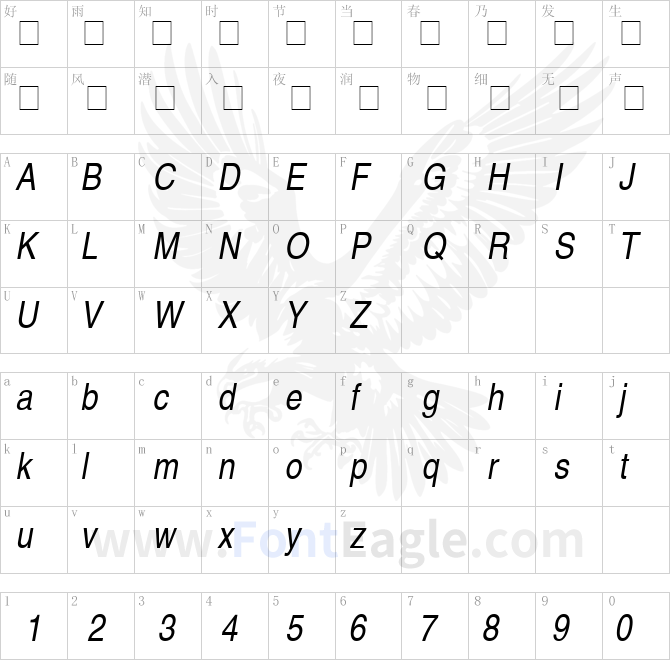
Sans-Narrow-ITALIC is a great font, widely used in graphic design, single-page menu design, poster design and other fields, and is deeply loved by designers.Sans-Narrow-ITALIC download.